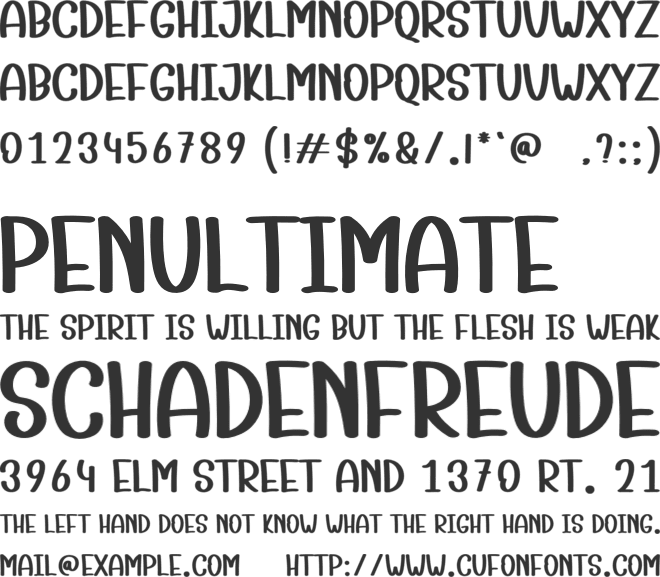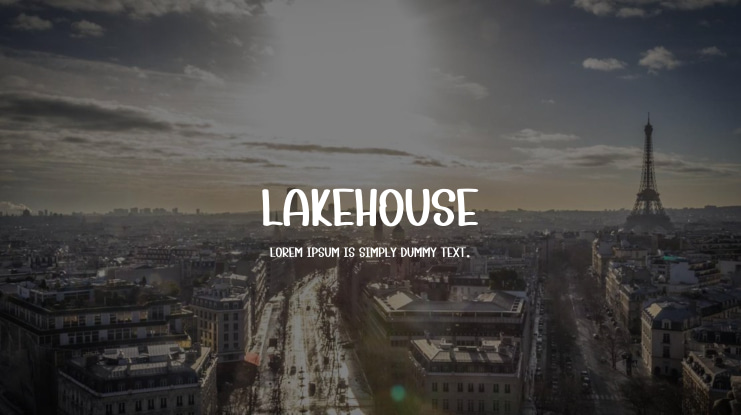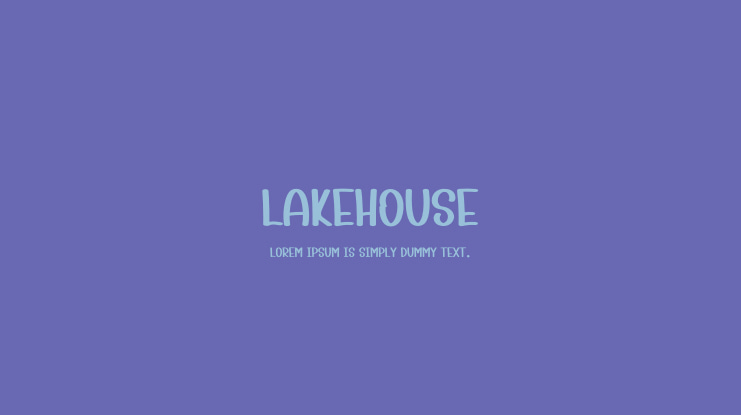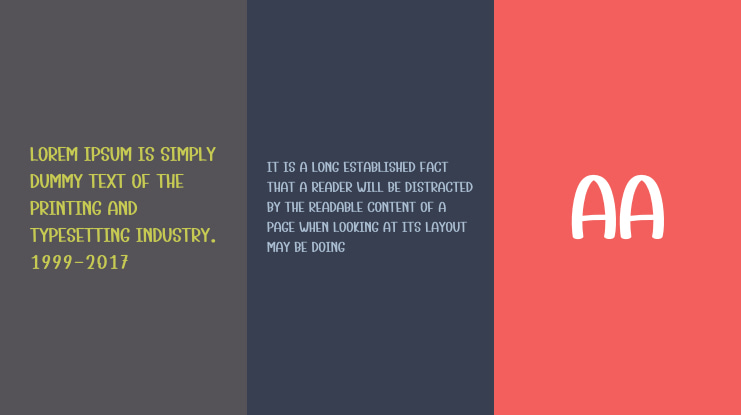
Lakehouse Font
The latest style letters are perfect for wall displays, wedding invitations, social media post logos, advertisements, product packaging, product designs, labels, photography, watermarks, invitations, stationery, and any project that requires tasteful handwriting.